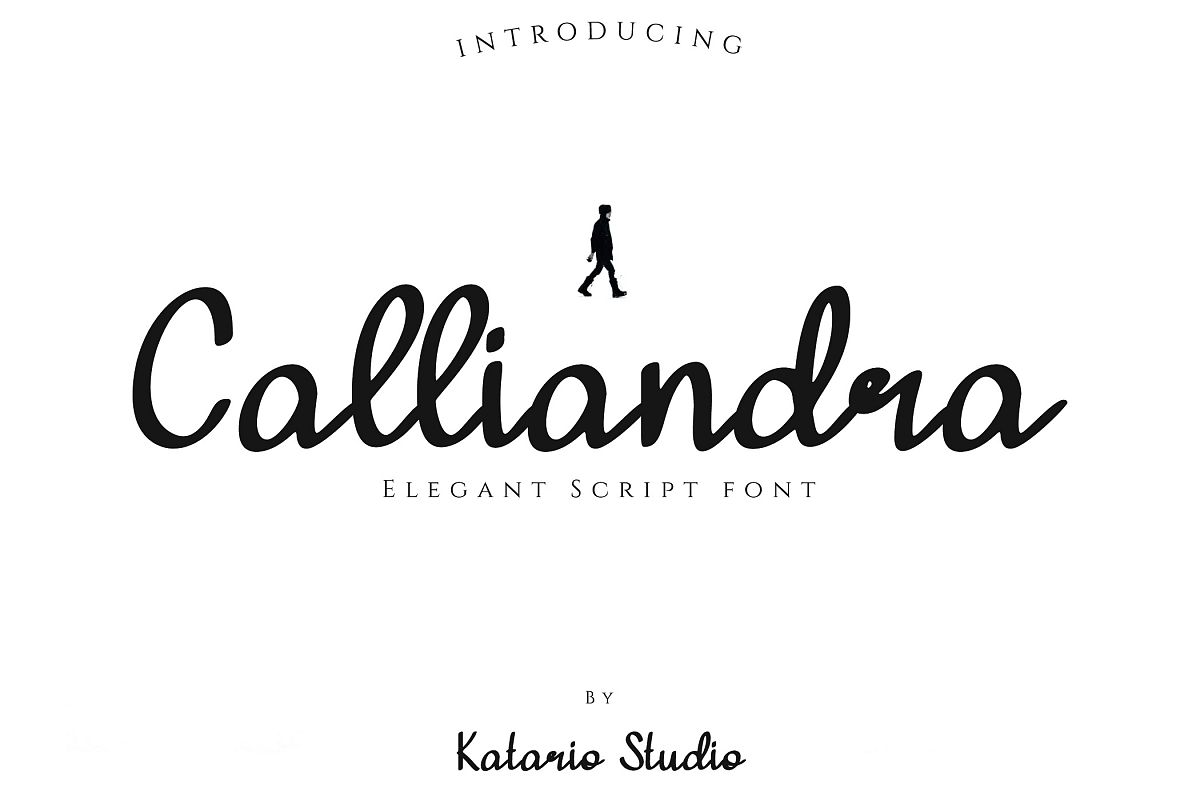
Calliandra
Katario Studio Presents:
Calliandra Font
Beautiful roundy handwritten script font that suitable for any projects you have. Especially for wedding, holiday event, brand.